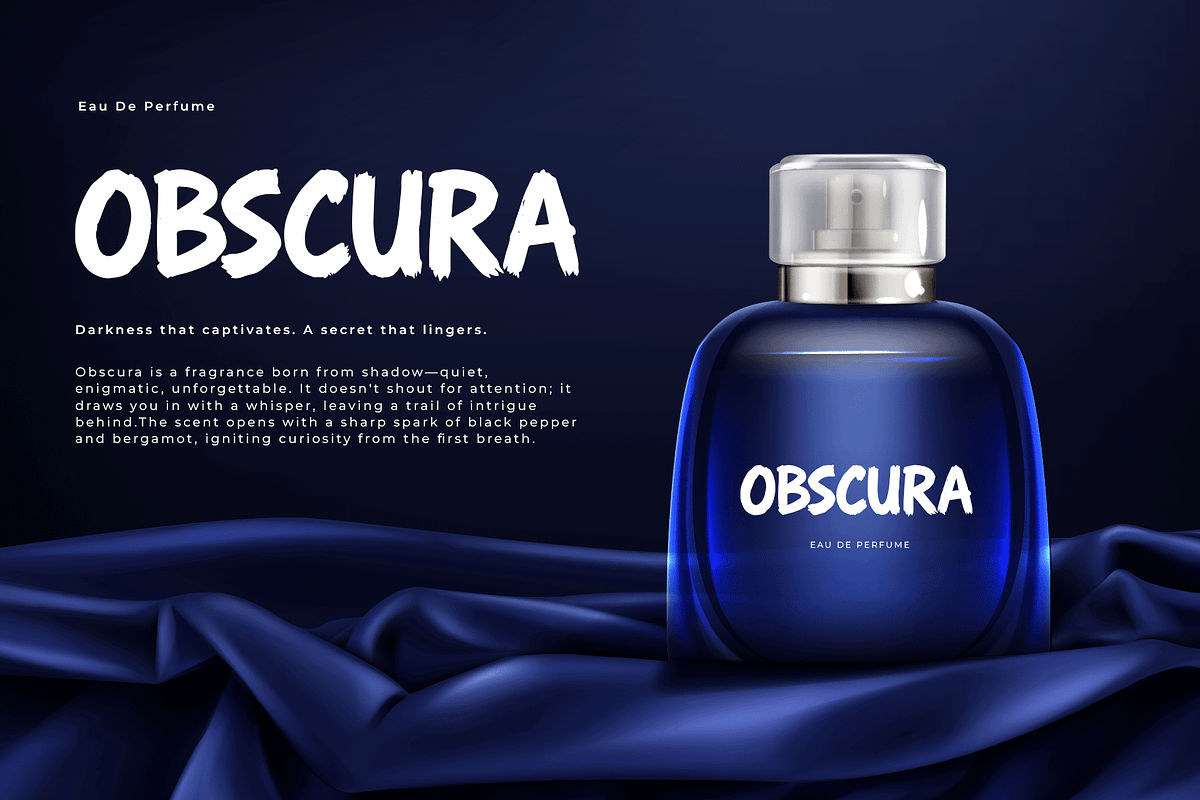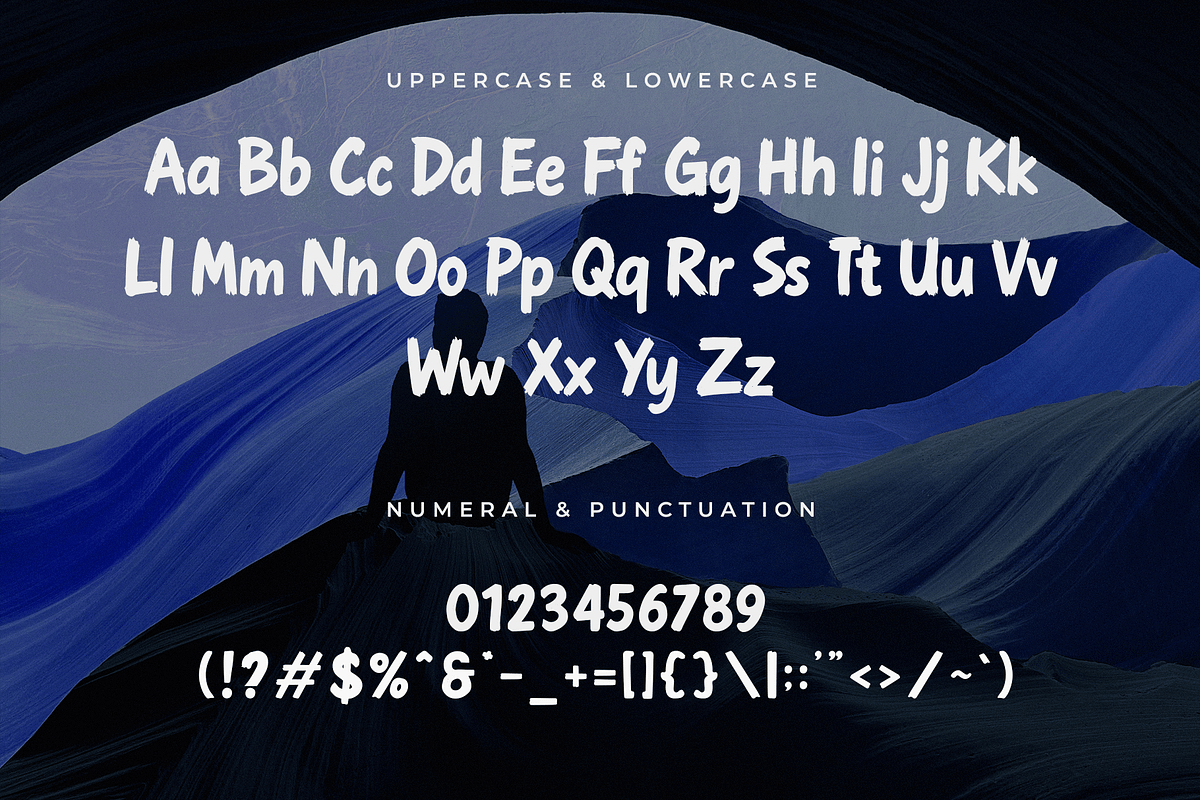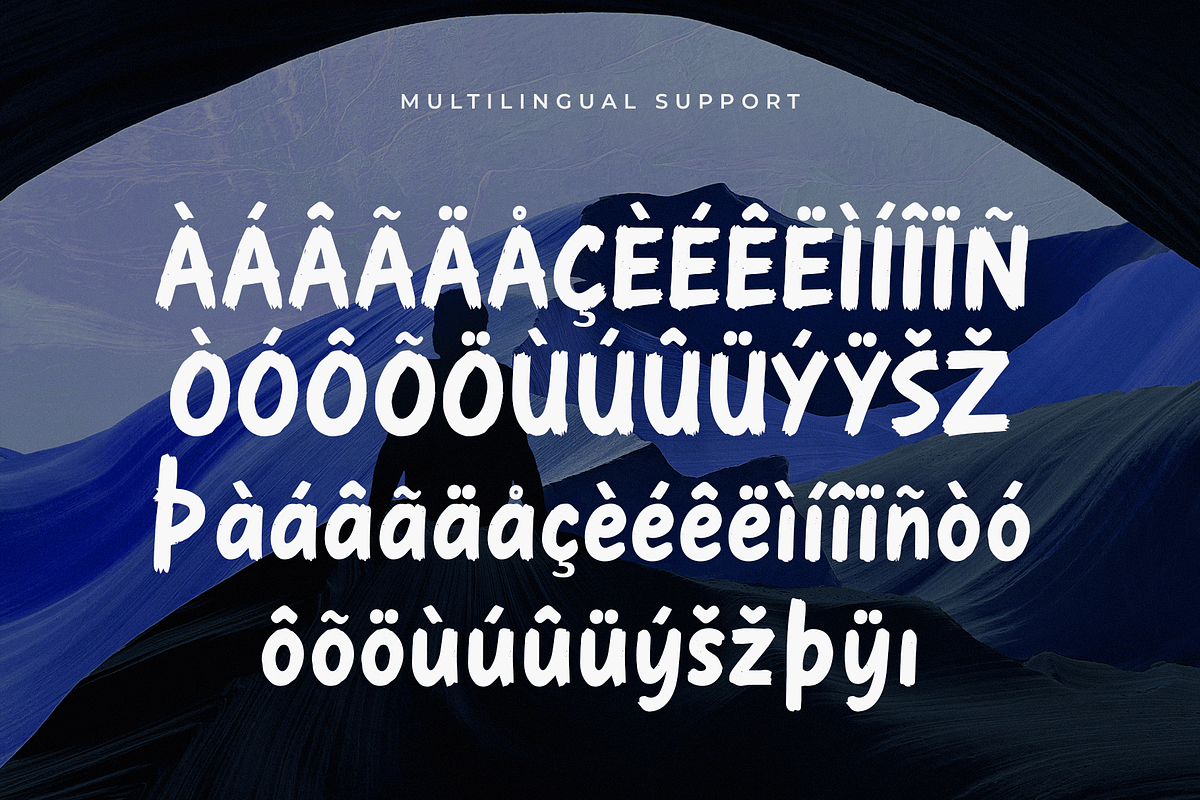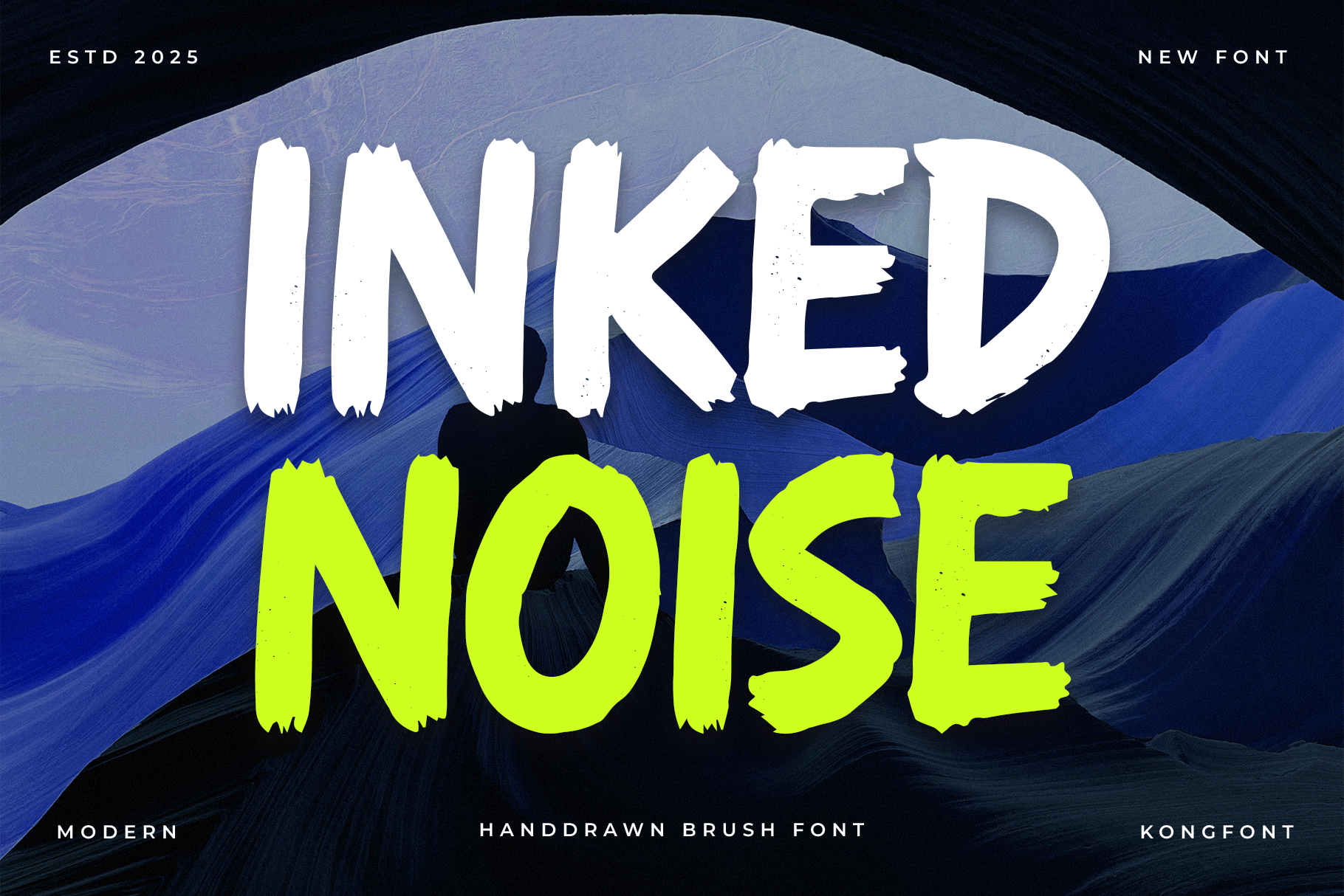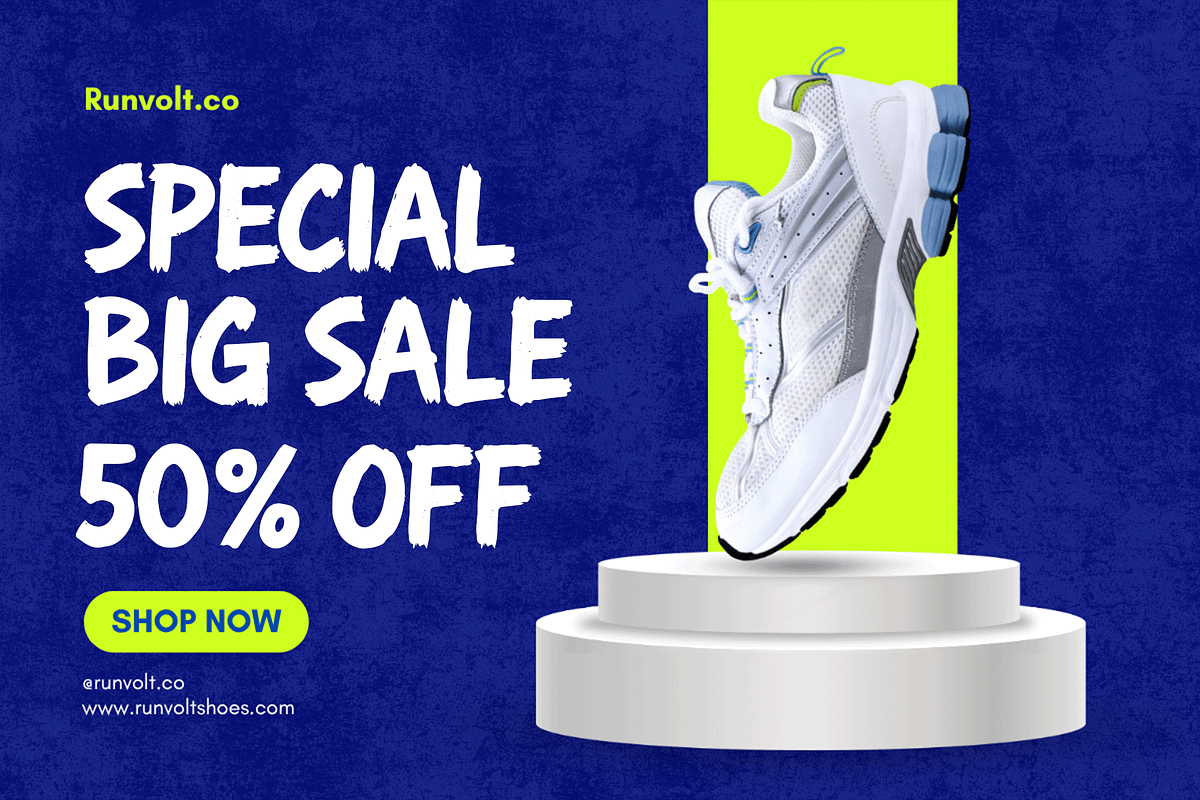
Inked Noise – Handdrawn Brush Font
Inked Noise is a handdrawn brush font bursting with boldness and expressive personality. Crafted to look like it was painted with speed and attitude, this font is perfect for projects that need to shout with impact and creativity.
With its rough edges, dynamic strokes, and rebellious flair, Inked Noise brings handcrafted authenticity to posters, album covers, streetwear branding, social media graphics, merchandise, and more. Whether you're designing for punk rock aesthetics or edgy modern campaigns, this font adds an unmistakable human touch.
The font includes uppercase, lowercase, numbers, punctuation, and multilingual support—offering both grit and versatility.
Make some noise with Inked Noise—a brush font that bleeds character and energy.